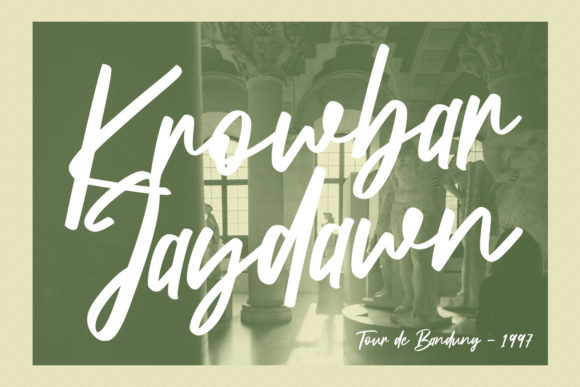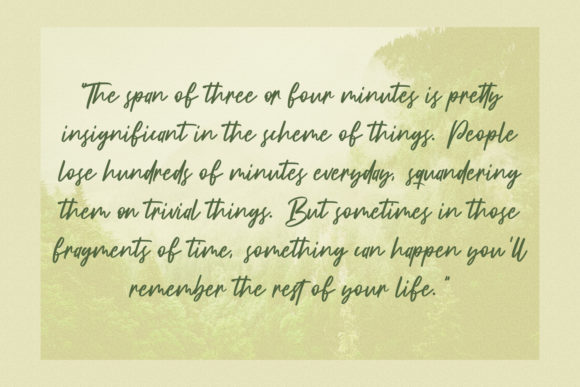
About Hidestix Font
Hidestix is a fancy handwritten script font. It features medium contrast strokes, fun characters, ligatures and alternates. Masterfully designed to become a true favorite, this font has the potential to bring each of your creative ideas to the highest level!